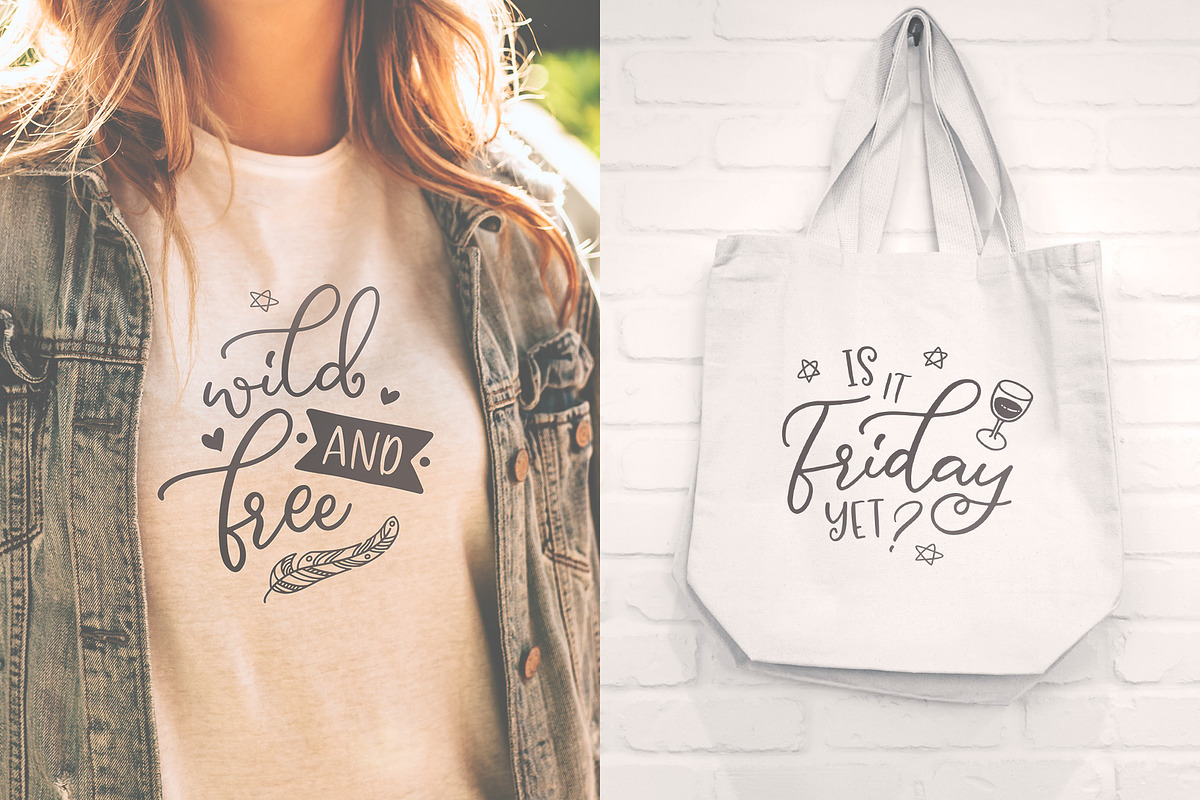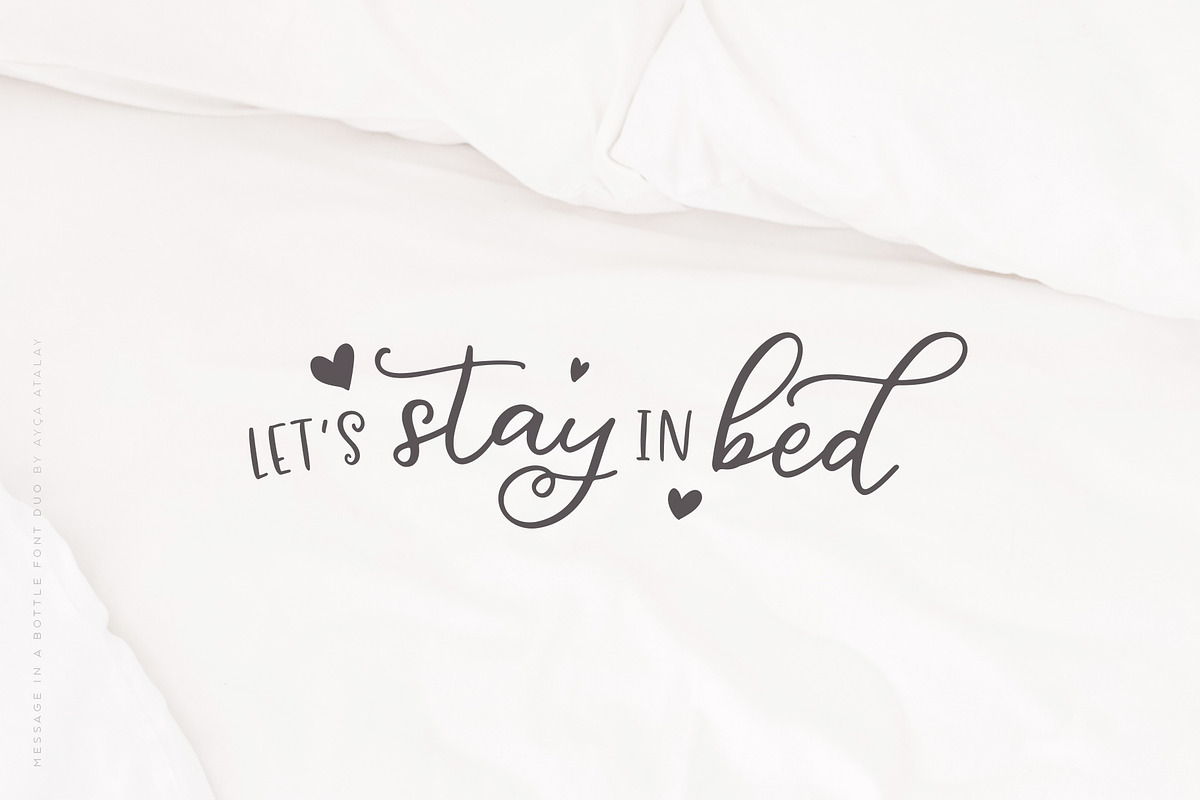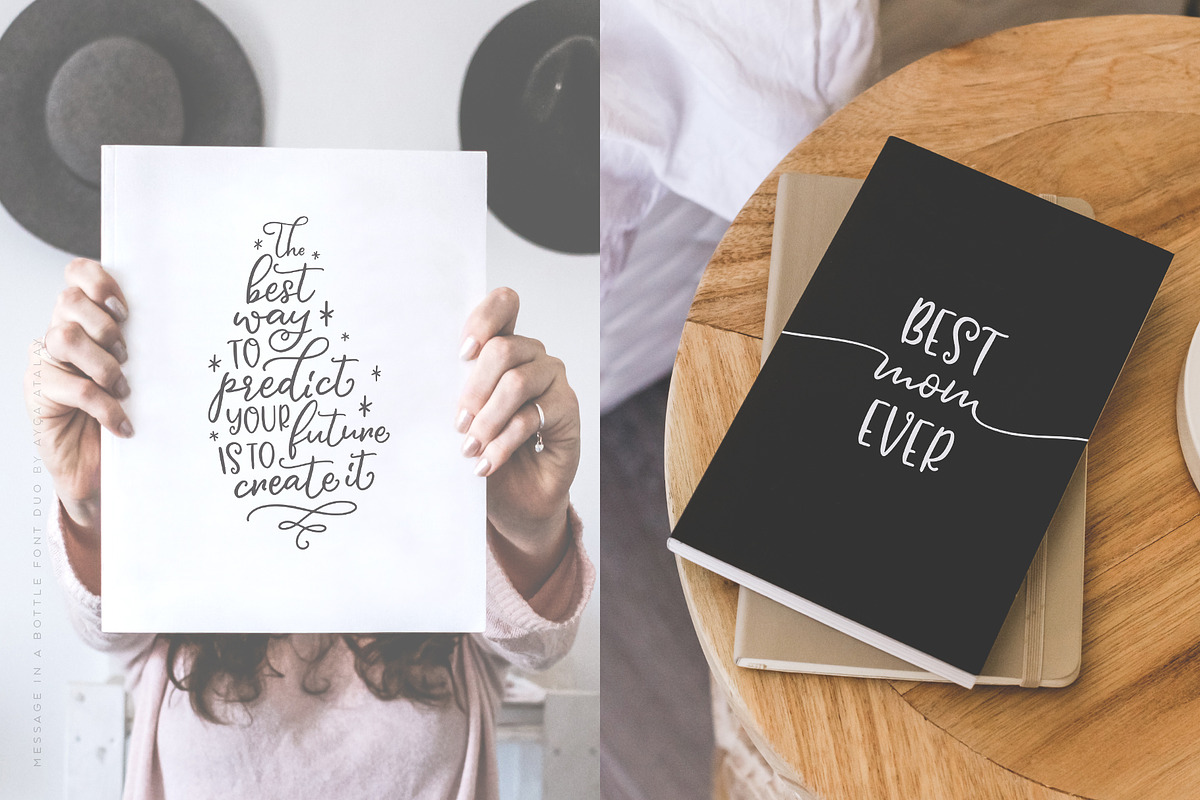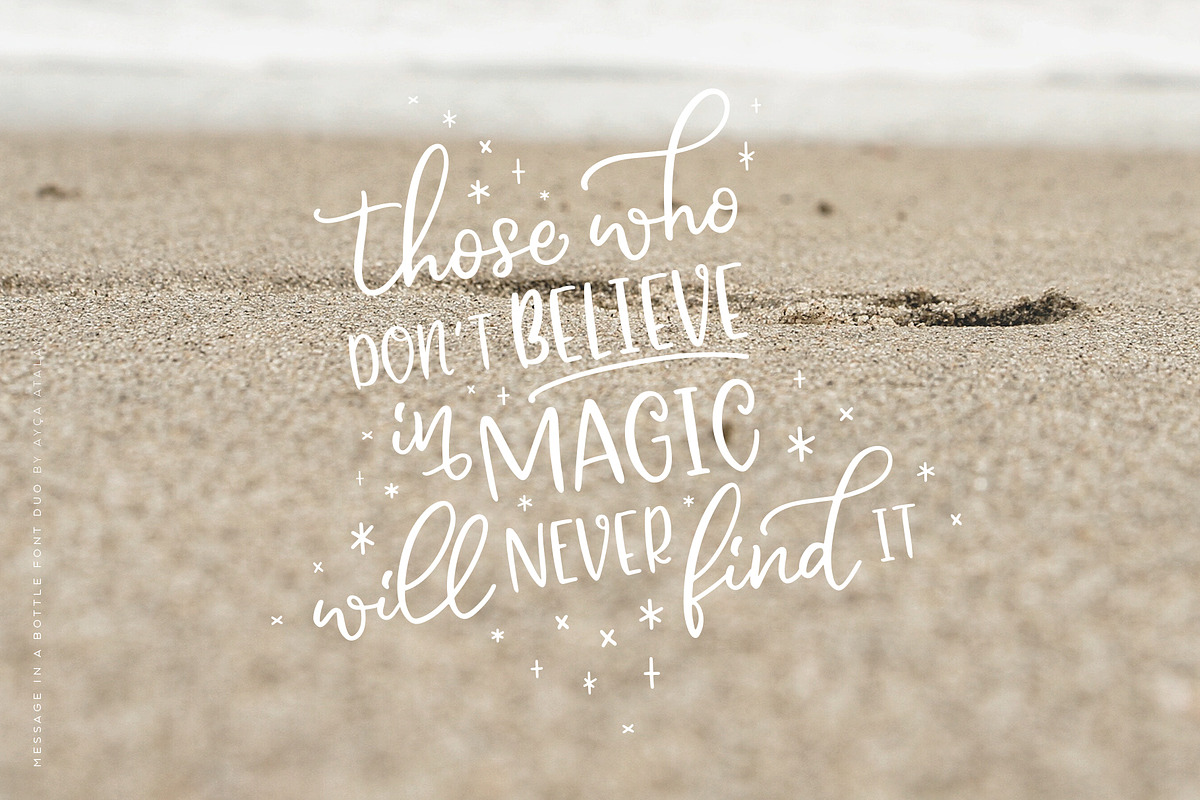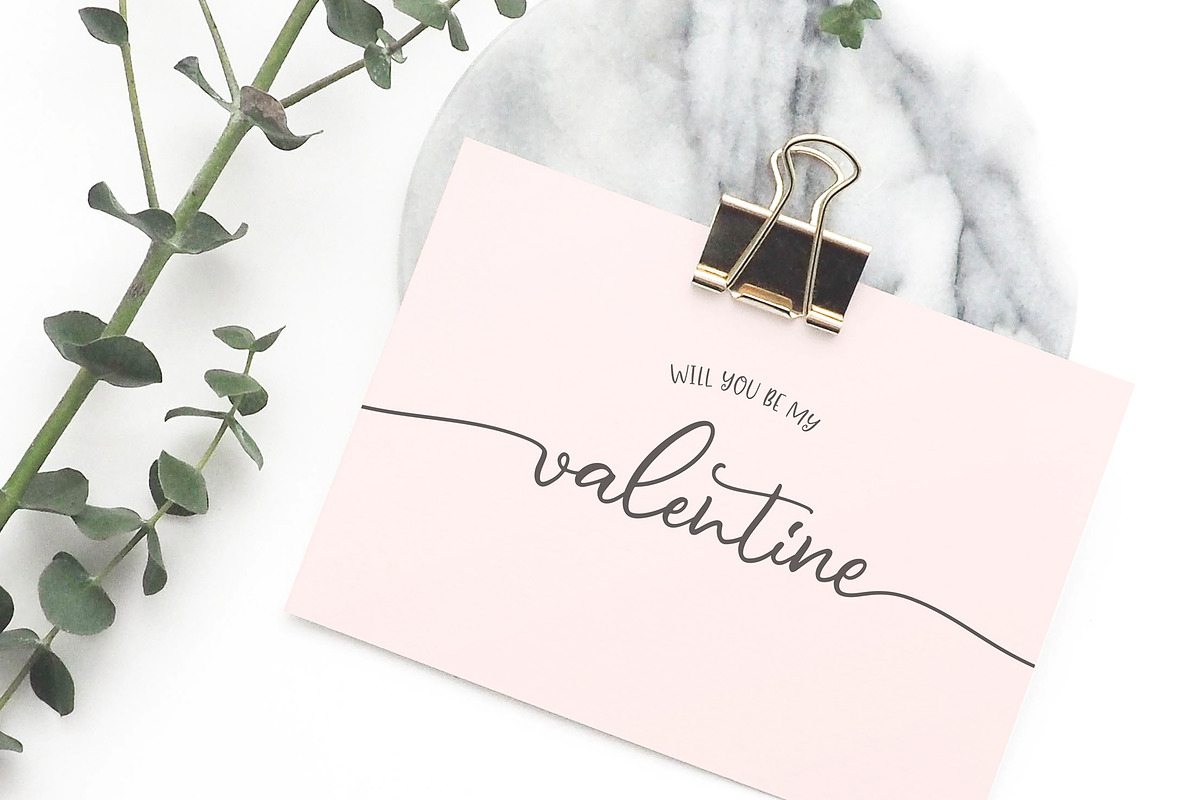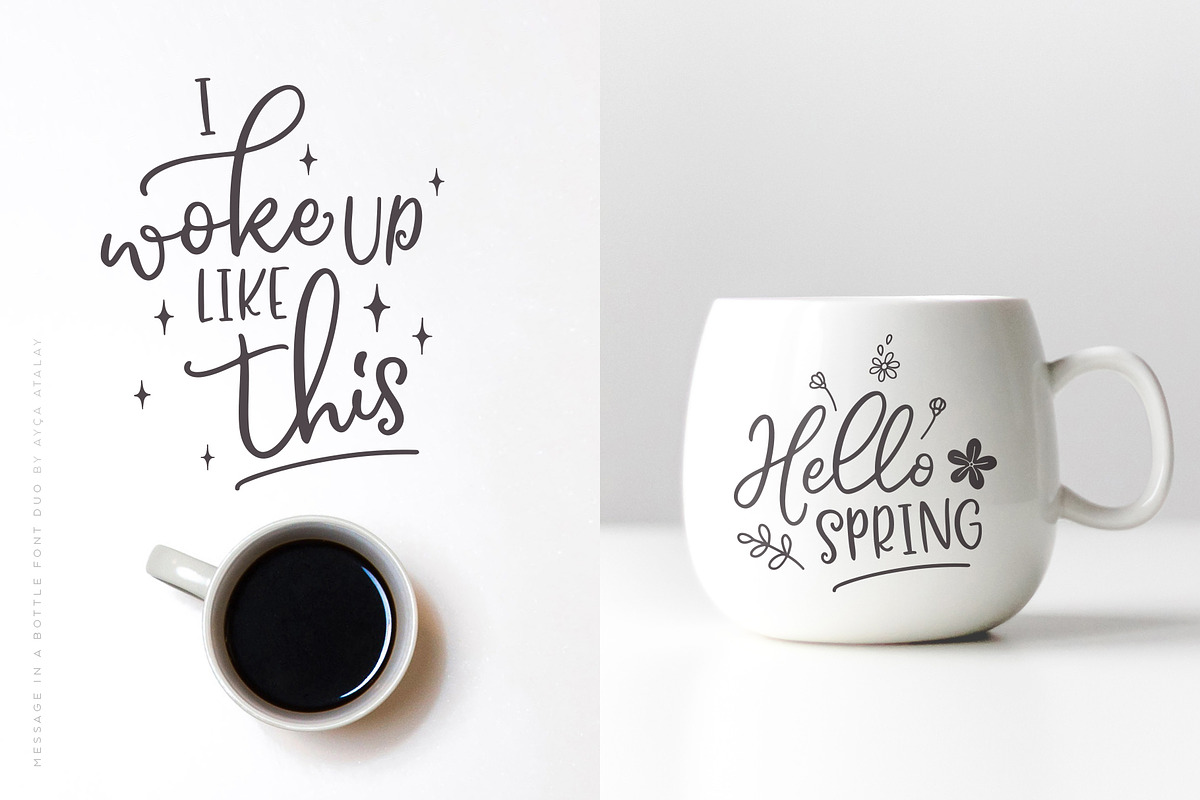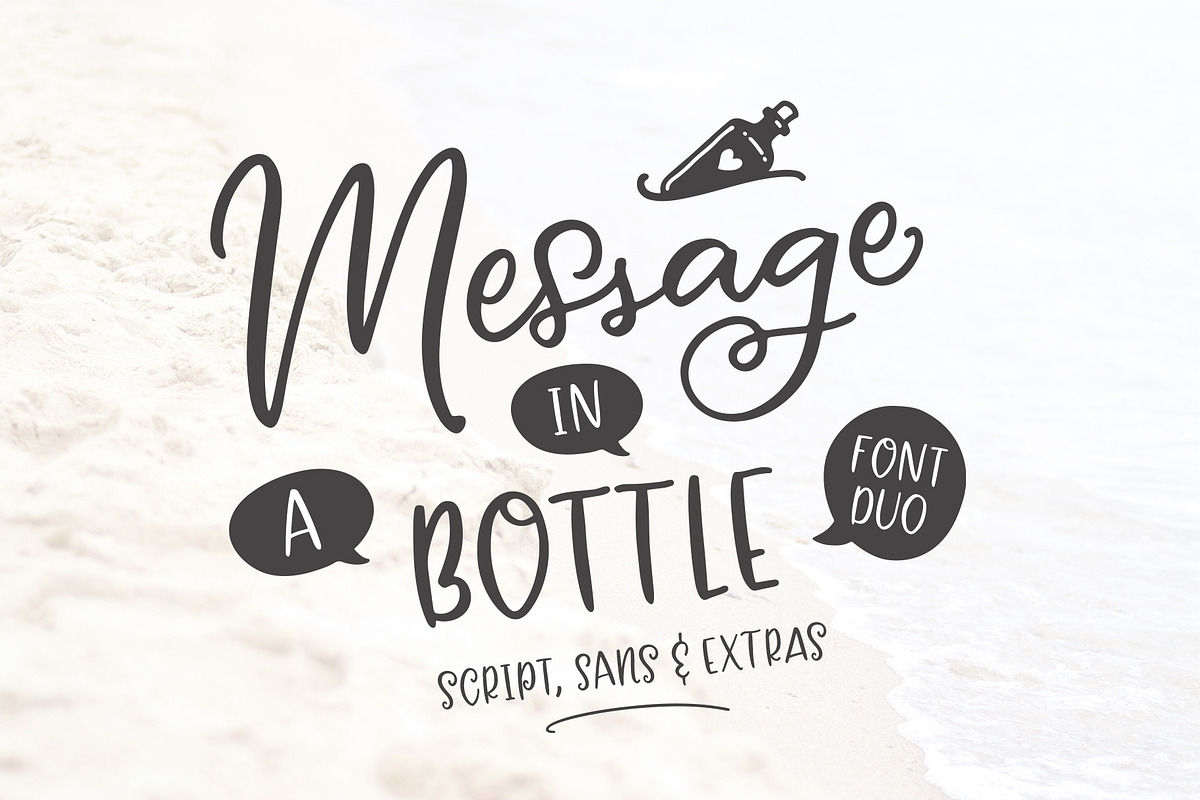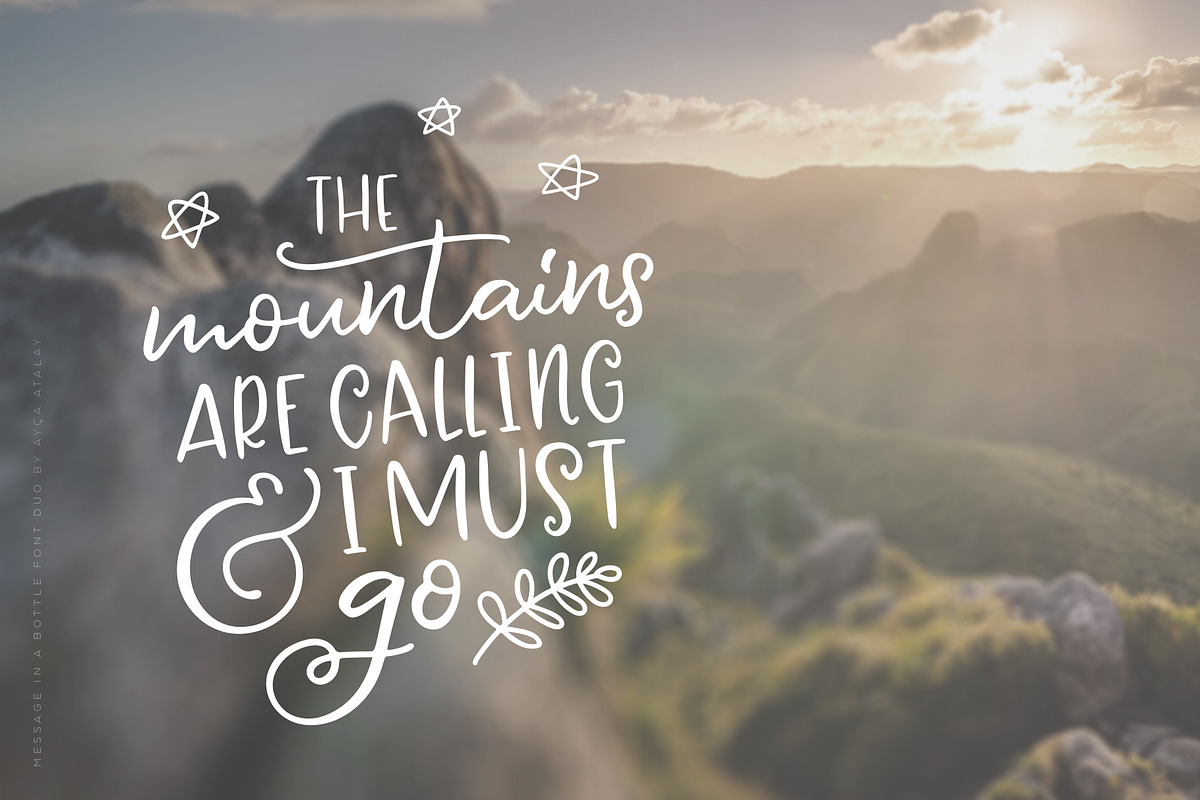
Message In A Bottle Font Duo
Message In A Bottle Font Duo is a complete lettering set that includes a hand lettered modern calligraphy font, a charming sans serif and 2 hand drawn doodles and flourishes fonts.
Message In A Bottle Script comes with a full set of alternative letters, 38 ligatures, swashes, terminal characters and initial & terminal swashes, to create the uniquely hand lettered look.
The initial and terminal swashes are activated simply by typing 88 before and 88 after the lowercase letter you want to be in swash mode. (Example: 88name88)
The alternate letter set is provided as a separate font file for easier access.
Message In A Bottle Sans is a slightly quirky and fun font that perfectly complements the Script. It has its own set of ligatures that sustain the hand lettered effect.
Also included are Message In A Bottle Doodles and Message In A Bottle Flourishes, 2 hand drawn dingbat fonts readily available right under the font menu.